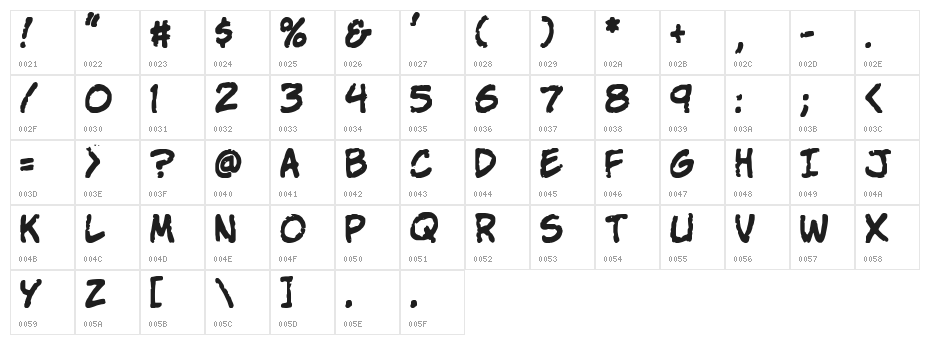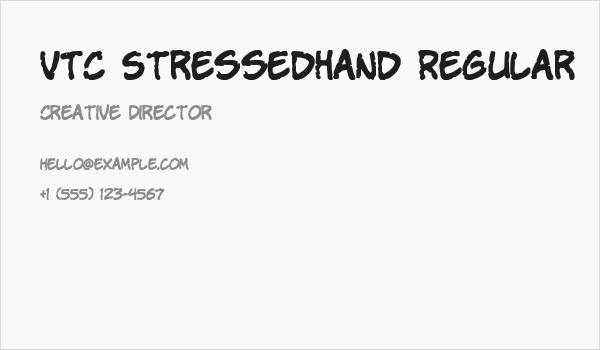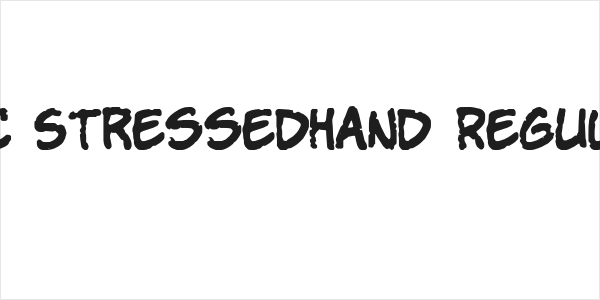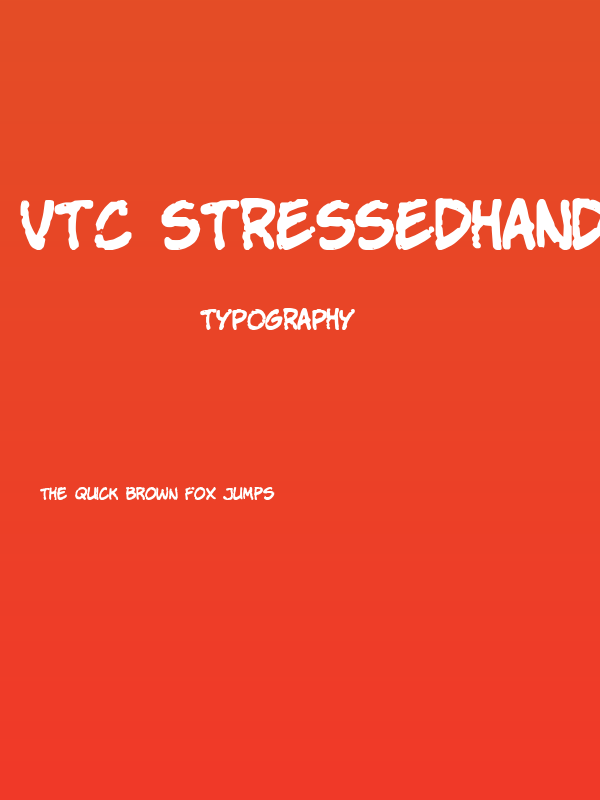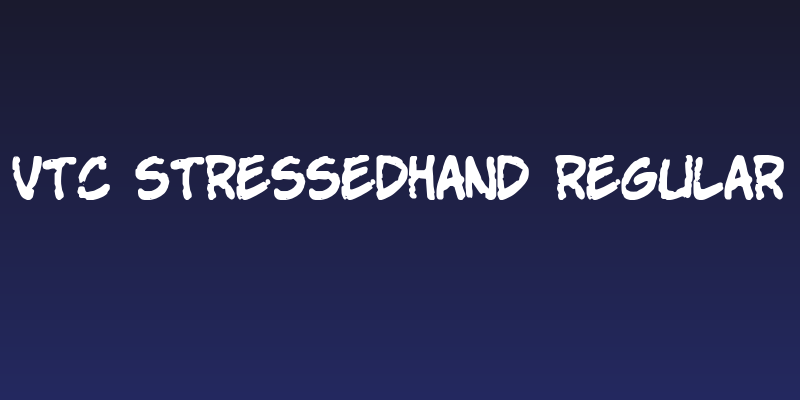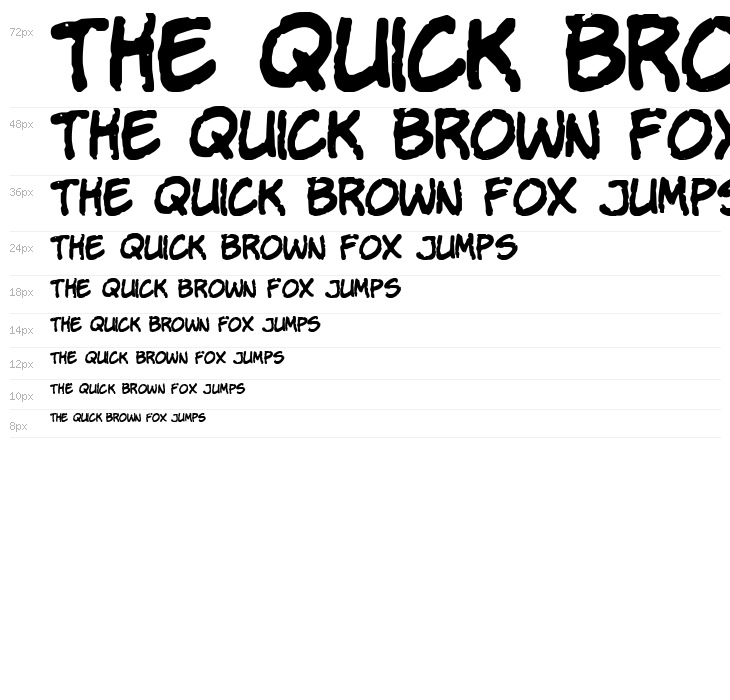
VTC StressedHand Regular Font
VTC StressedHand Regular Description
This font features a bold, distressed style that mimics the appearance of hand-painted or graffiti-like lettering. The characters are thick and uneven, giving a rugged and edgy feel. The uppercase and lowercase letters maintain a consistent, bold weight, while the numbers and special characters follow the same distressed aesthetic. The font's rough edges and irregular shapes contribute to its dynamic and energetic appearance, making it suitable for designs that require a strong, impactful visual statement.
| Overall Style | Urban, Edgy, Dynamic |
| Proposed Projects | Ideal for posters, album covers, streetwear branding, and urban-themed designs. |